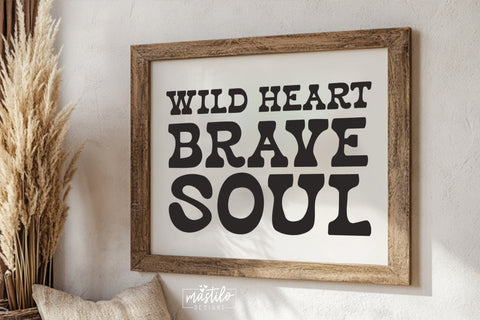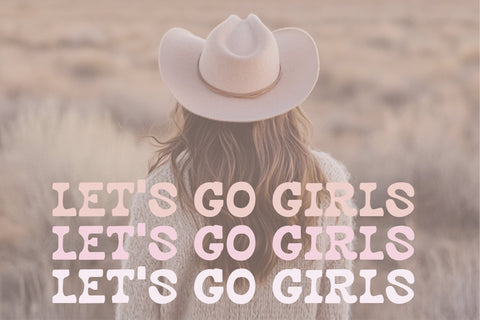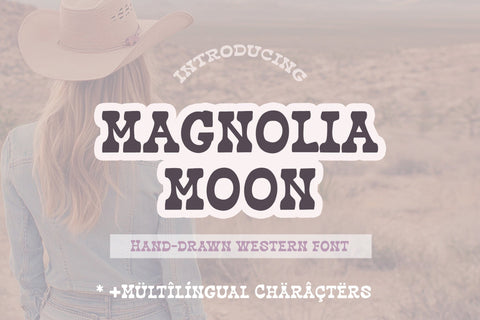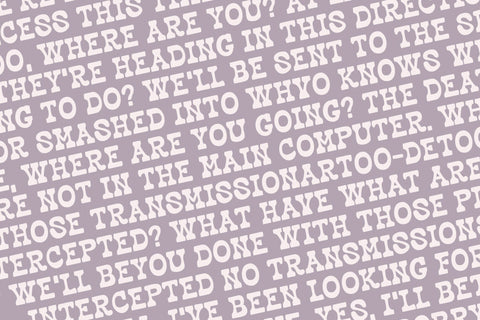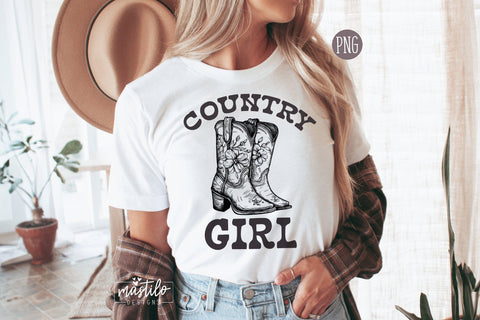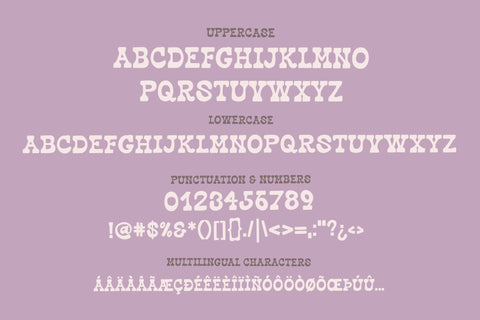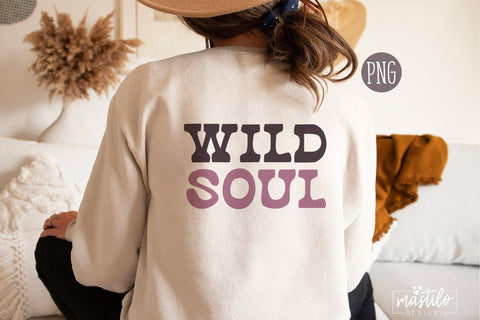
Western Handwritten Font Magnolia Moon, Western Font
Introducing Magnolia Moon, a hand drawn sans serif craft font. A versatile font, with possibilities for use for all your projects. With the possibilities to change the Uppercase strokes to different colors it makes a great craft font for all your projects.
Use it to design logos + branding, creating retro shirt designs and other apparel, stickers, phone cases, home decor, social media templates and instagram quotes, cricut and silhouette projects, procreate and so much more.
MAGNOLIA MOON includes:
~ full upper + lowercase characters
~ numbers + basic punctuation
~ Multilingual characters + support